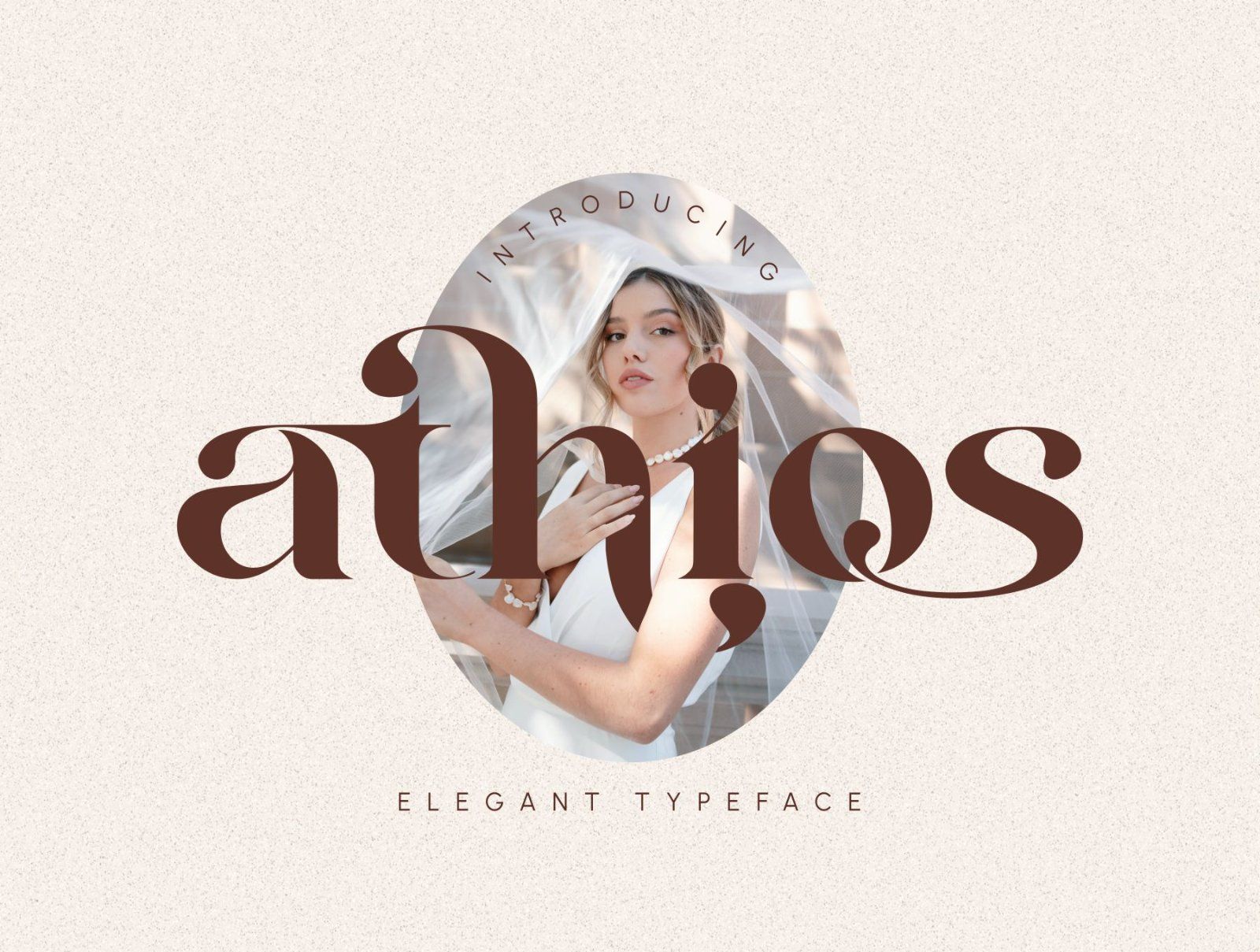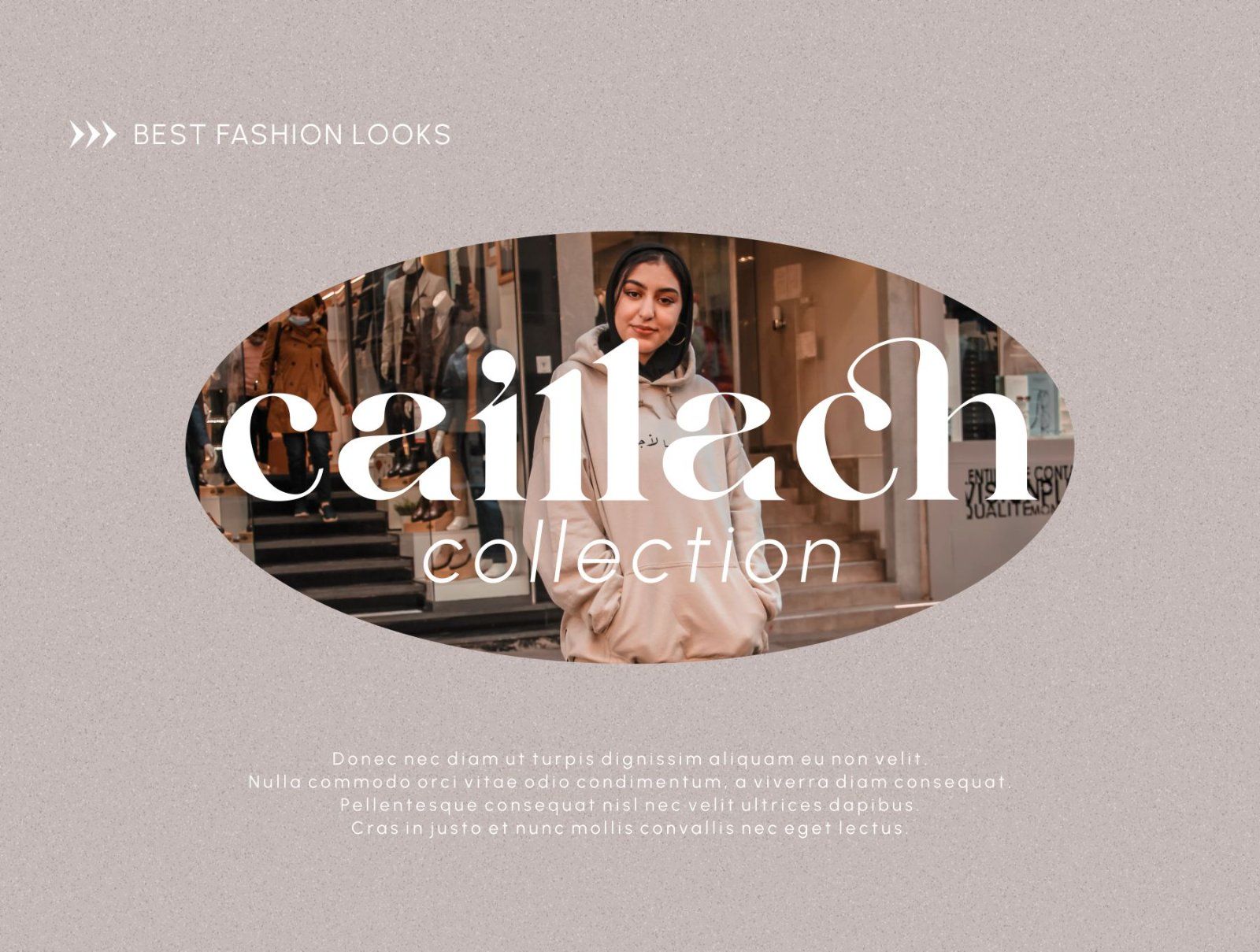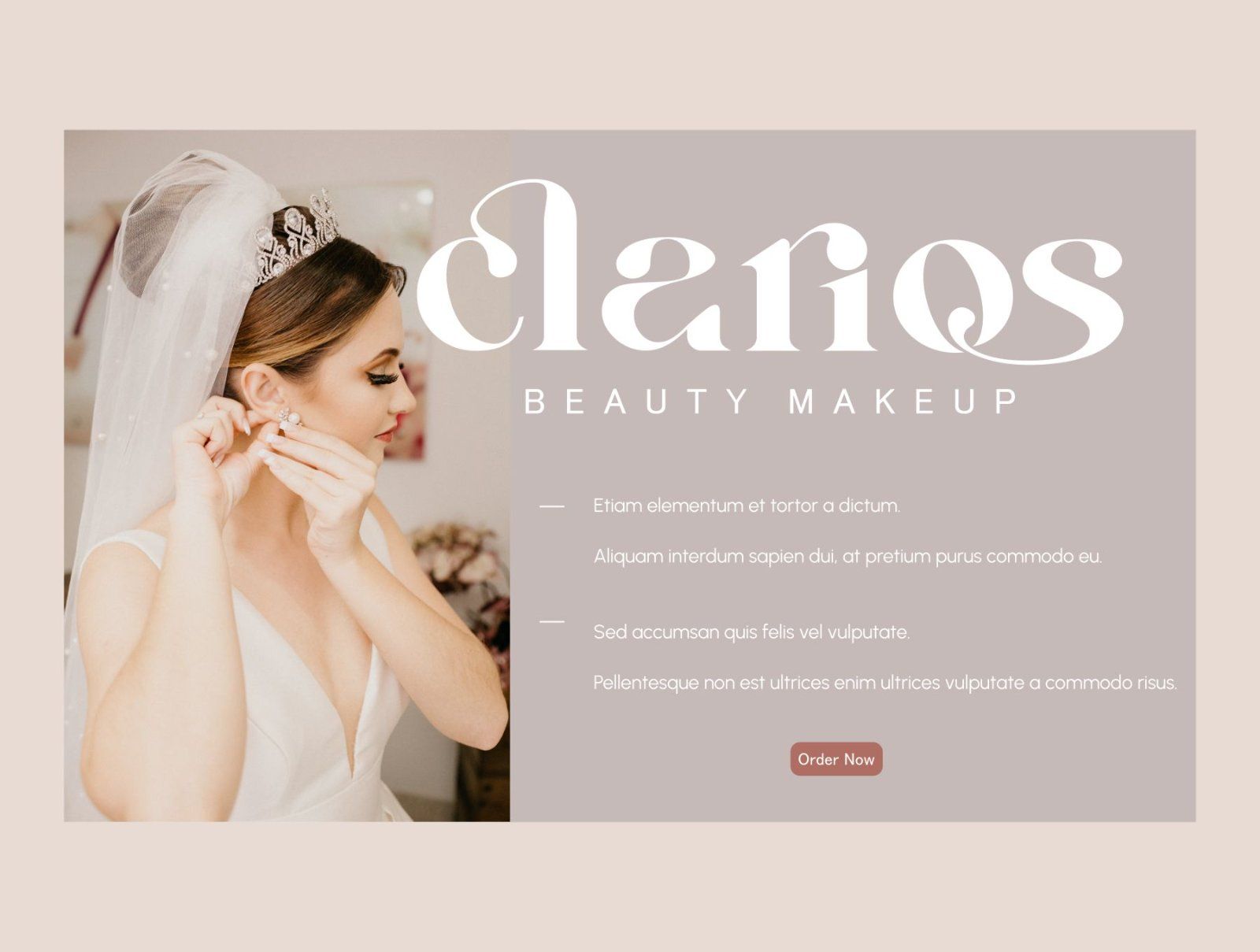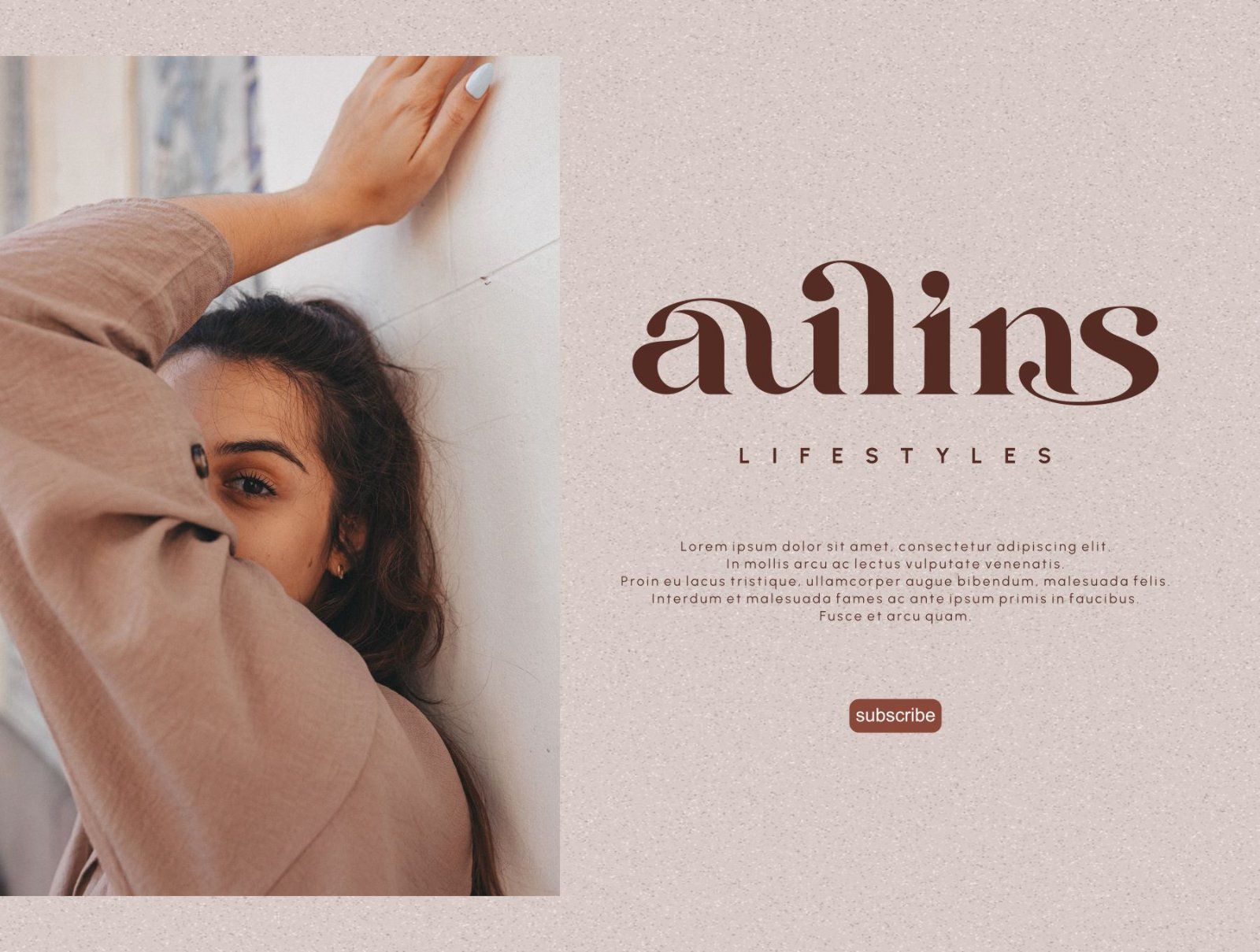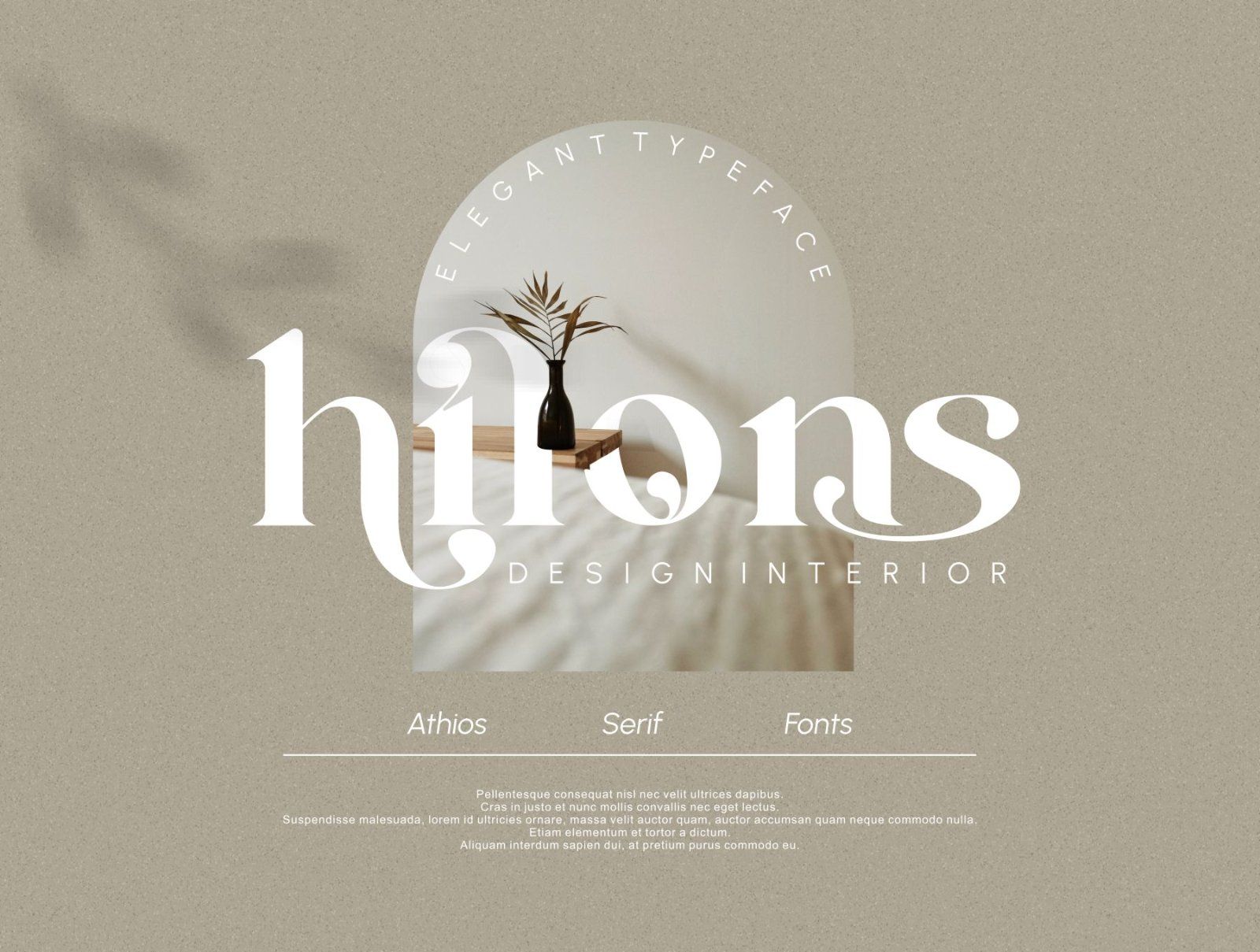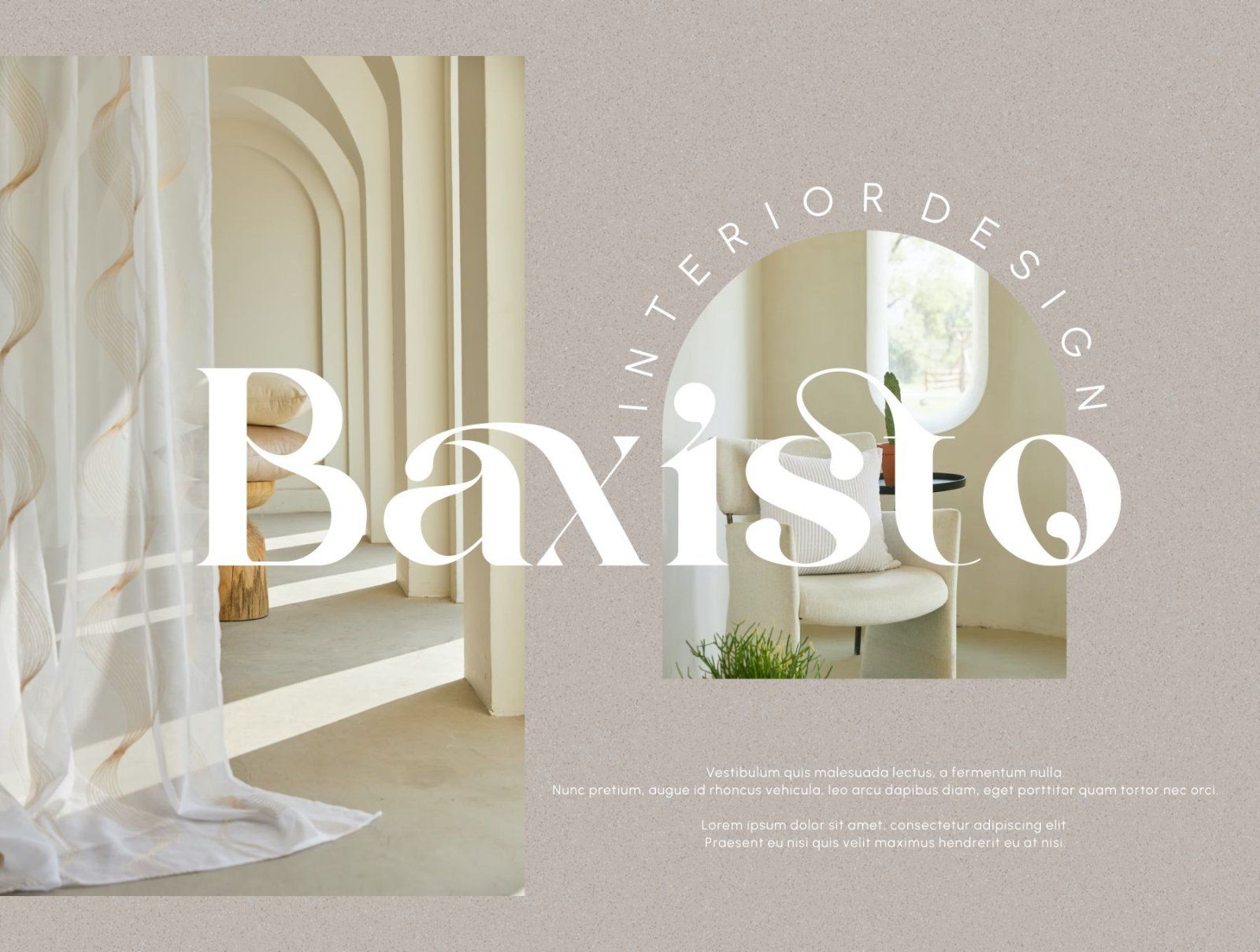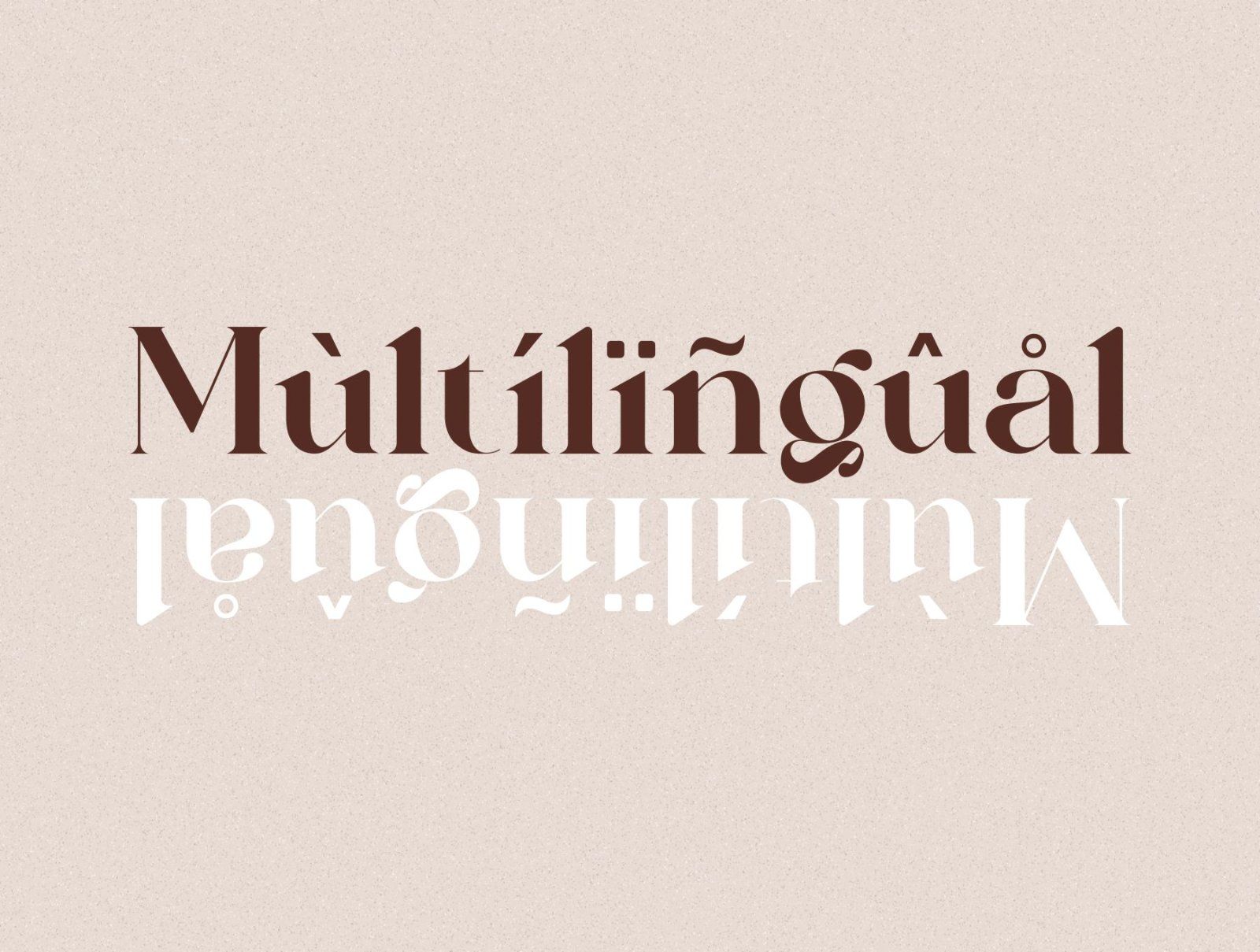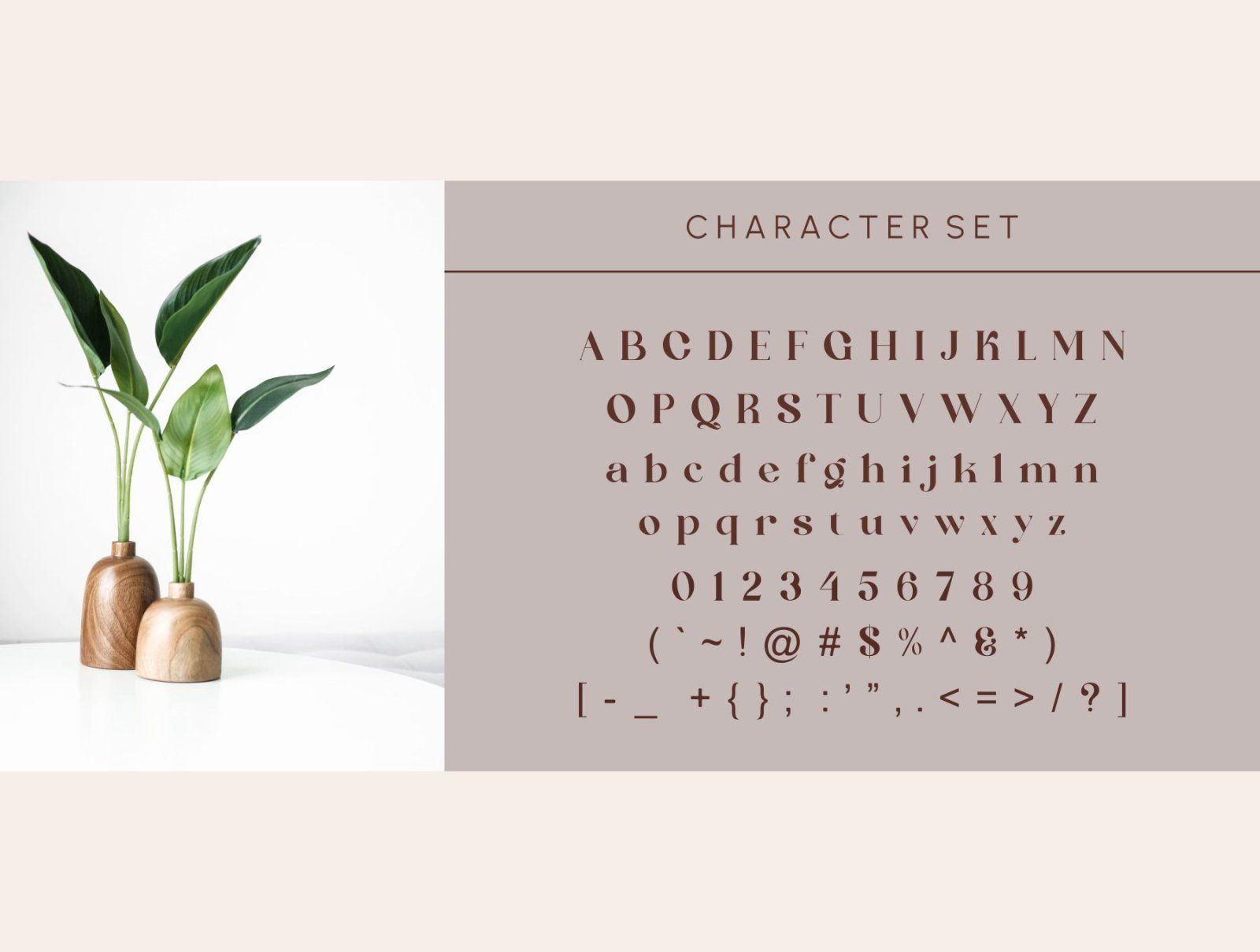
Athios - Elegant Typeface The Athios font comes with several alternatives and binders. which is designed with a subtle and charming. You can use it to create the perfect typographic design. This font is great for your project. Such as luxury logos and branding, classy editorial designs, women's magazines, cosmetic brands, fashion promotions, art gallery branding, stationery designs, modern advertising designs, invitation cards, and others.
-Alternate and
-Ligatures
-Multilingual Support